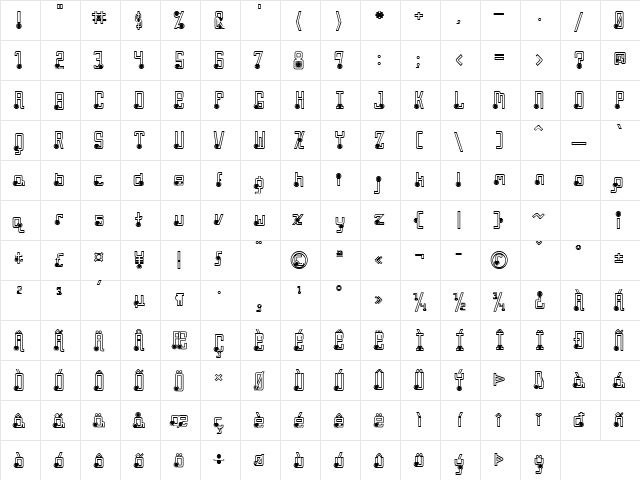
Quasidipitous Black Spot Regular
Design Context for Quasidipitous Black Spot Typeface
Quasidipitous Black Spot is a composed and adaptable typeface that performs quietly and consistently across a wide range of design contexts.